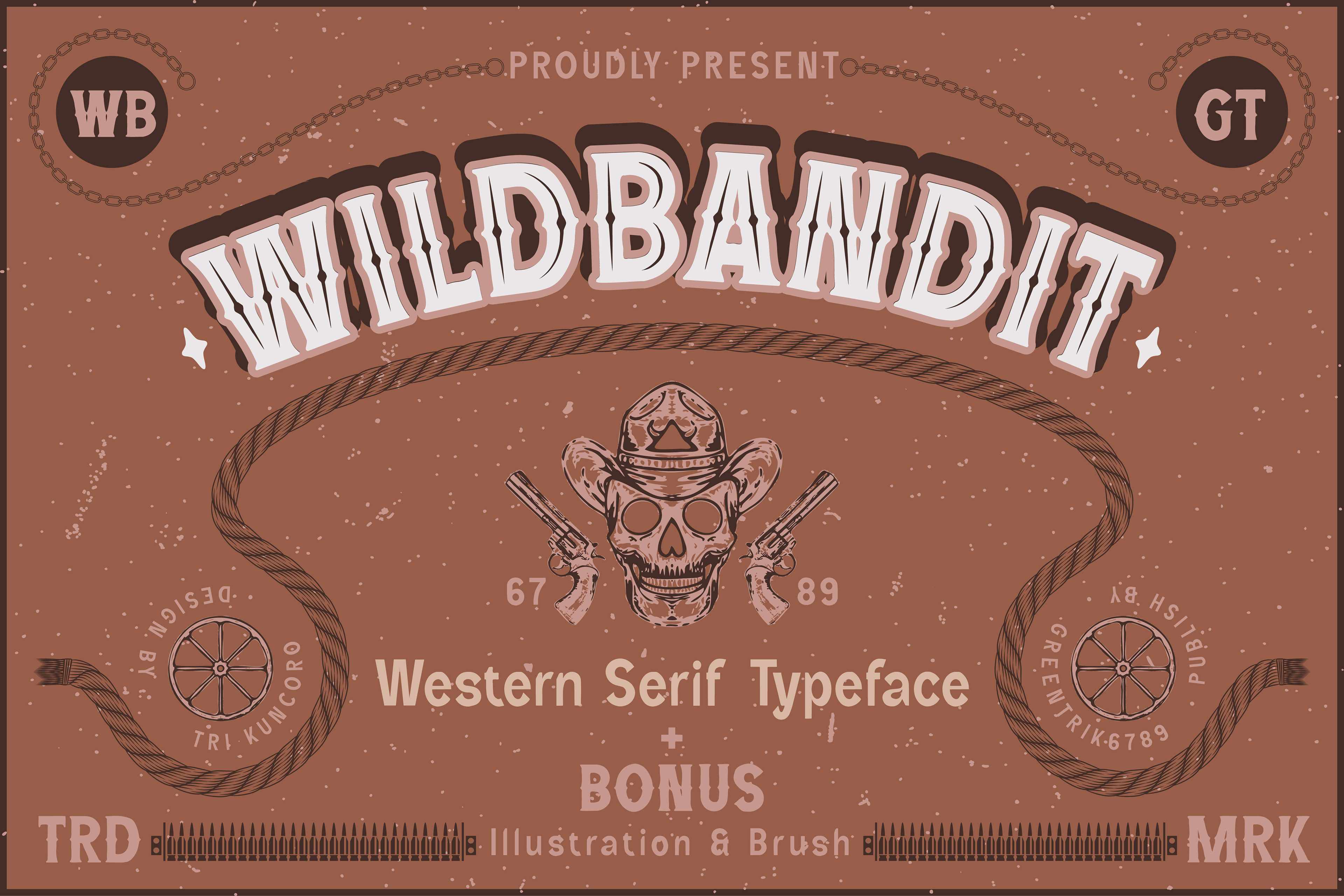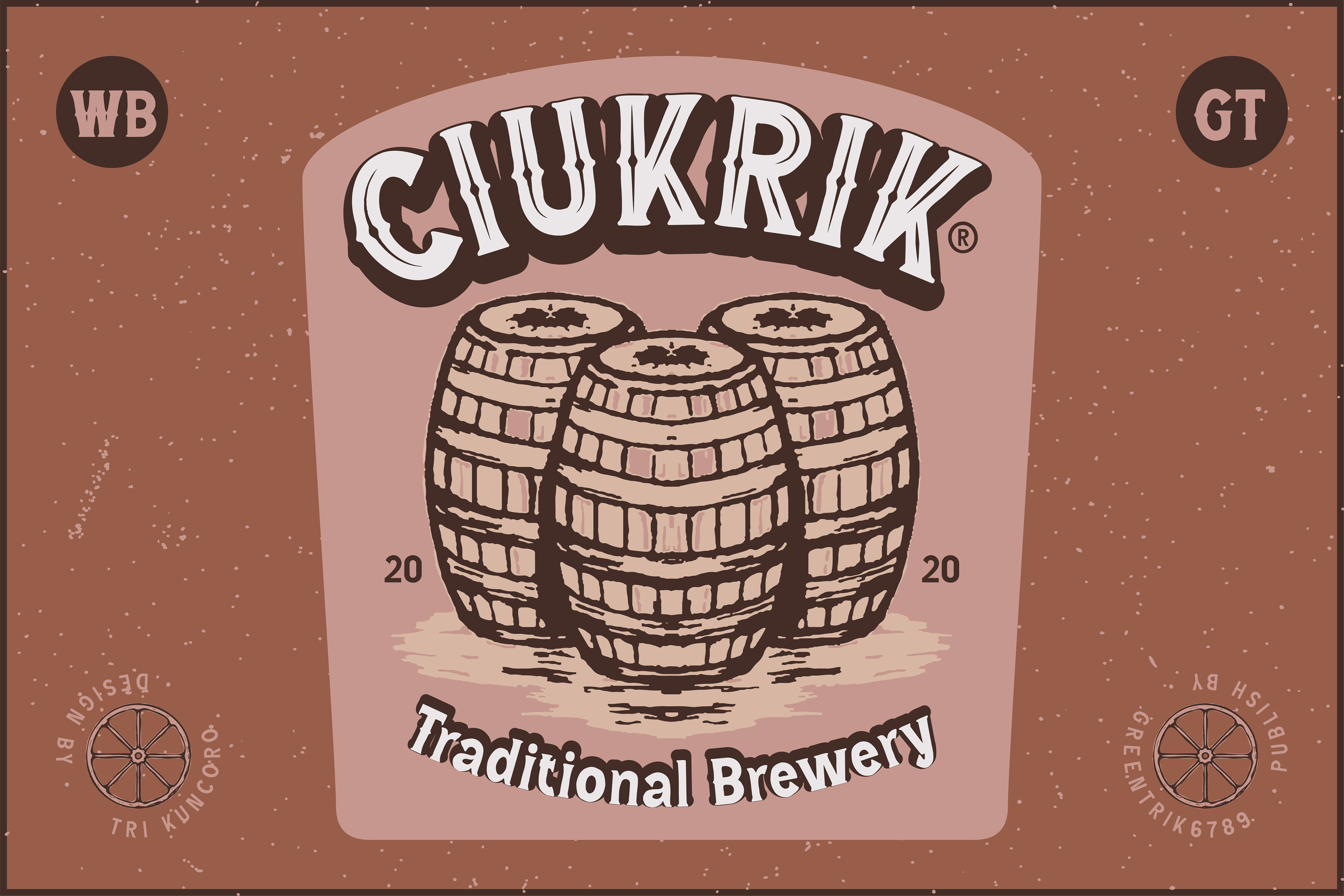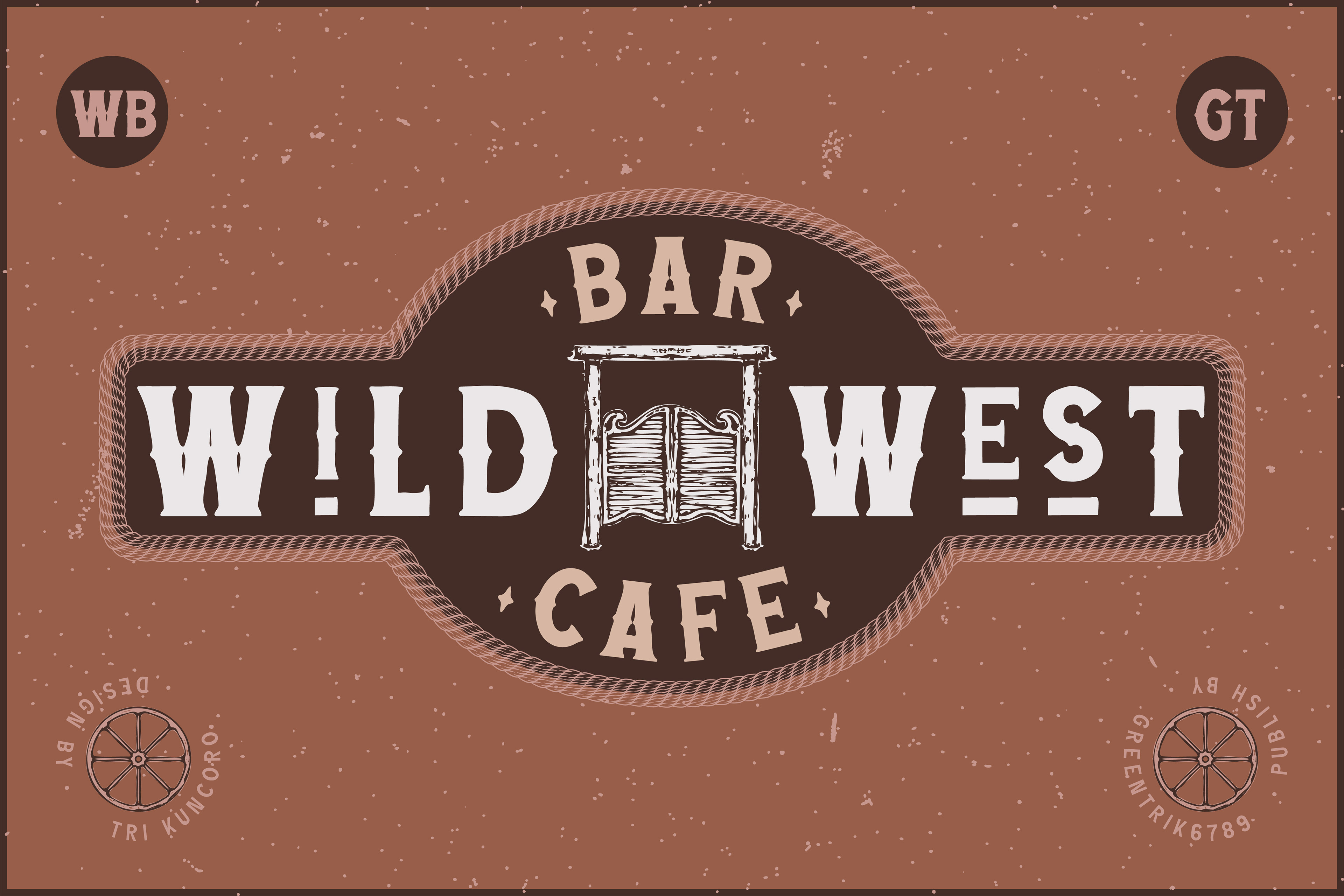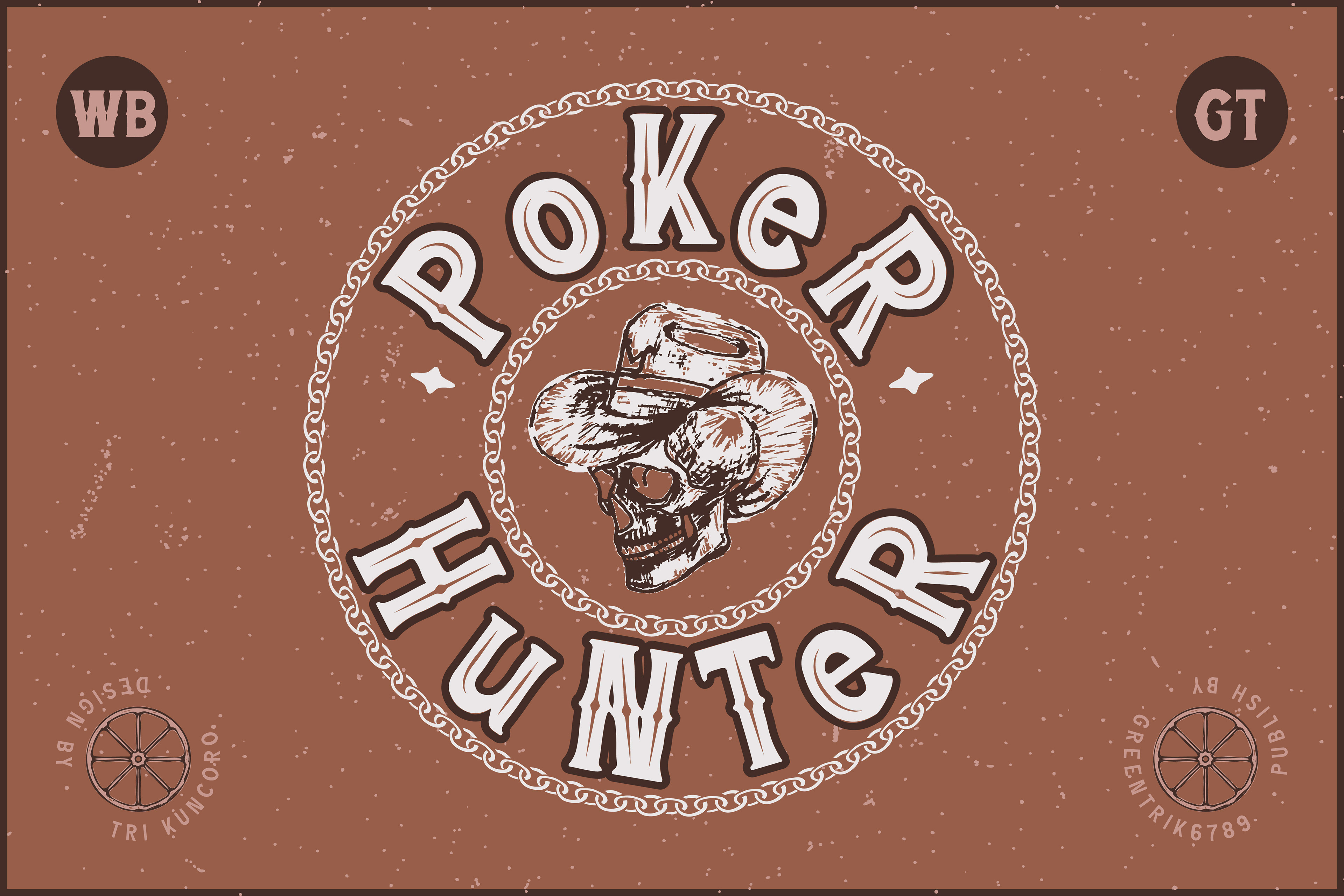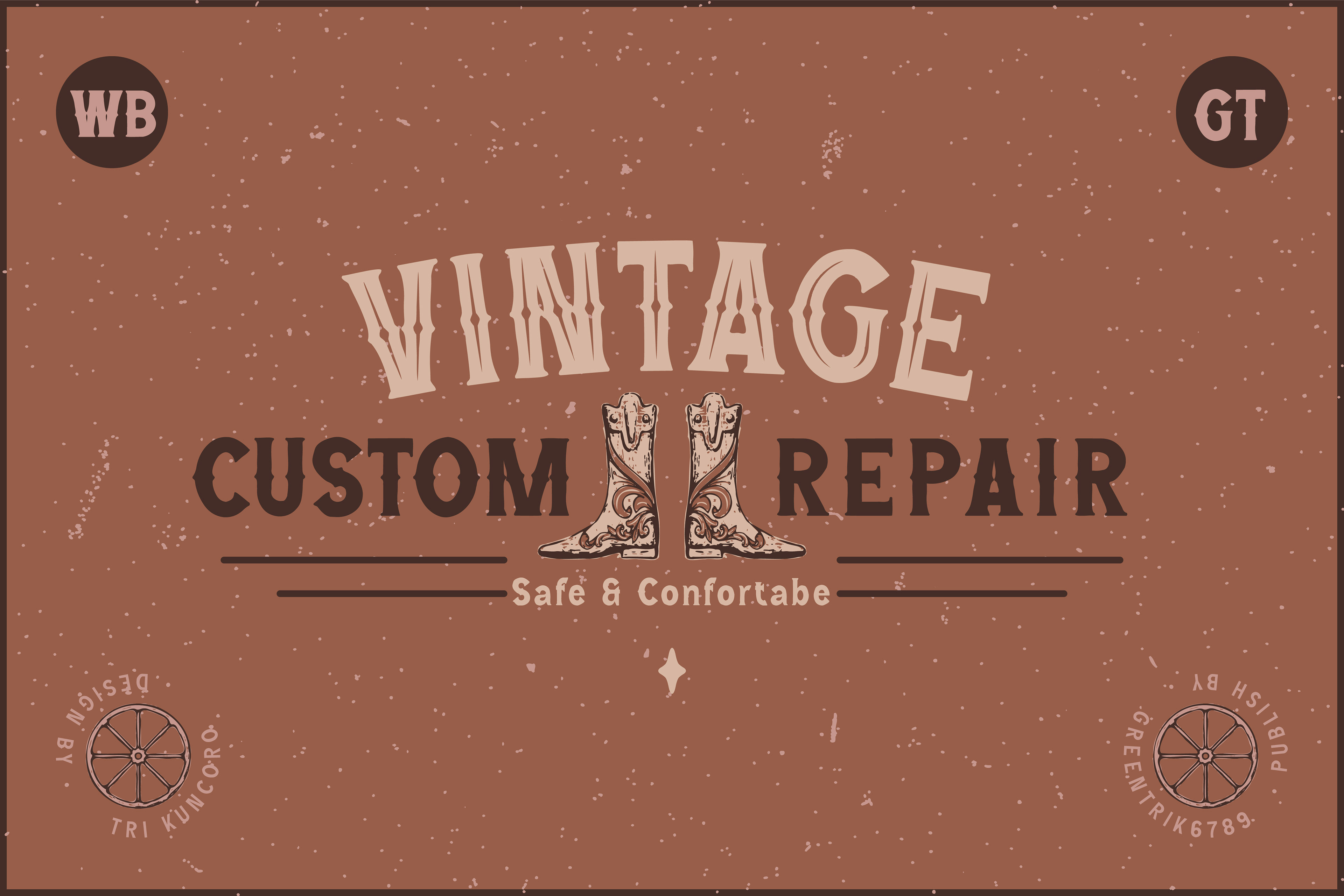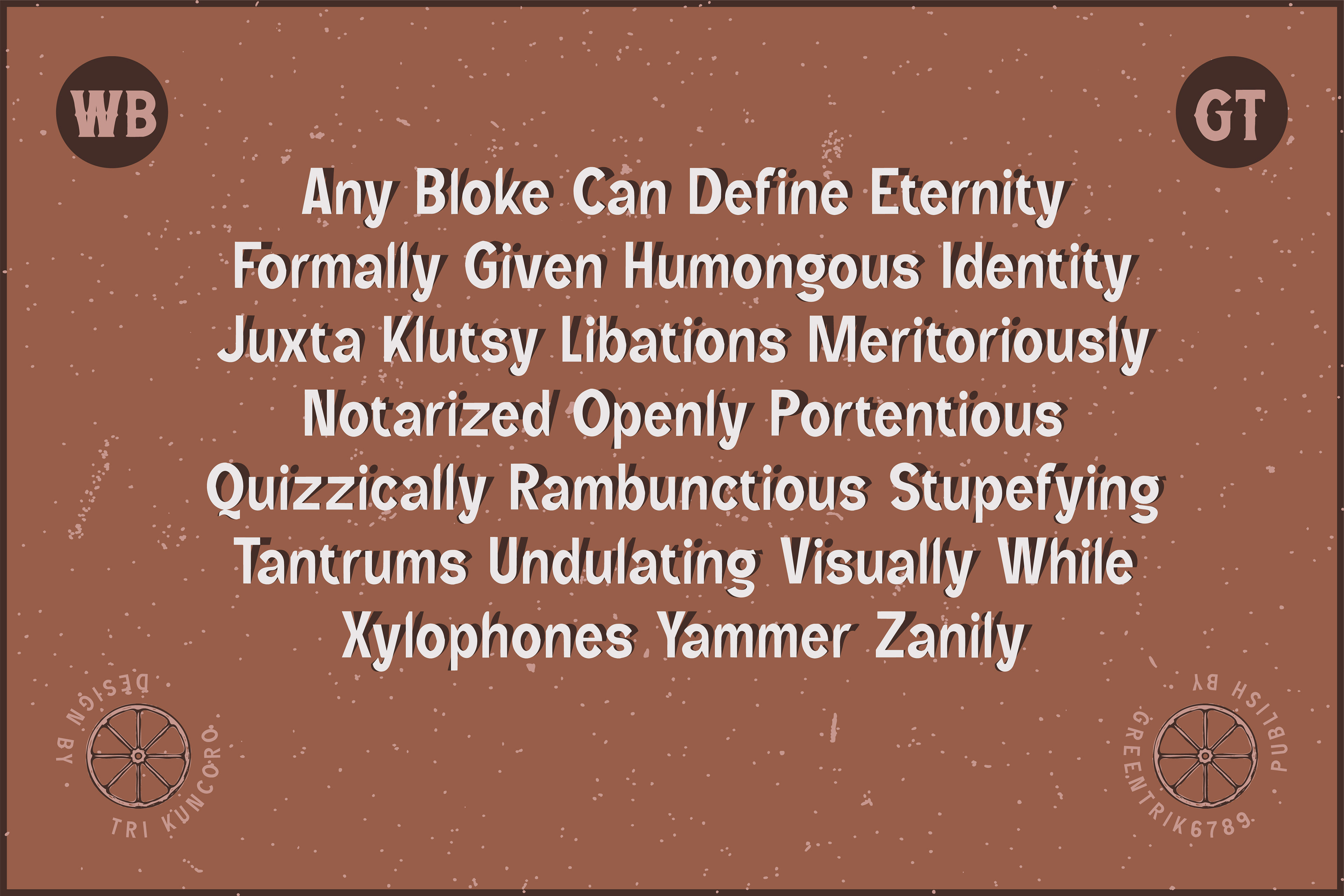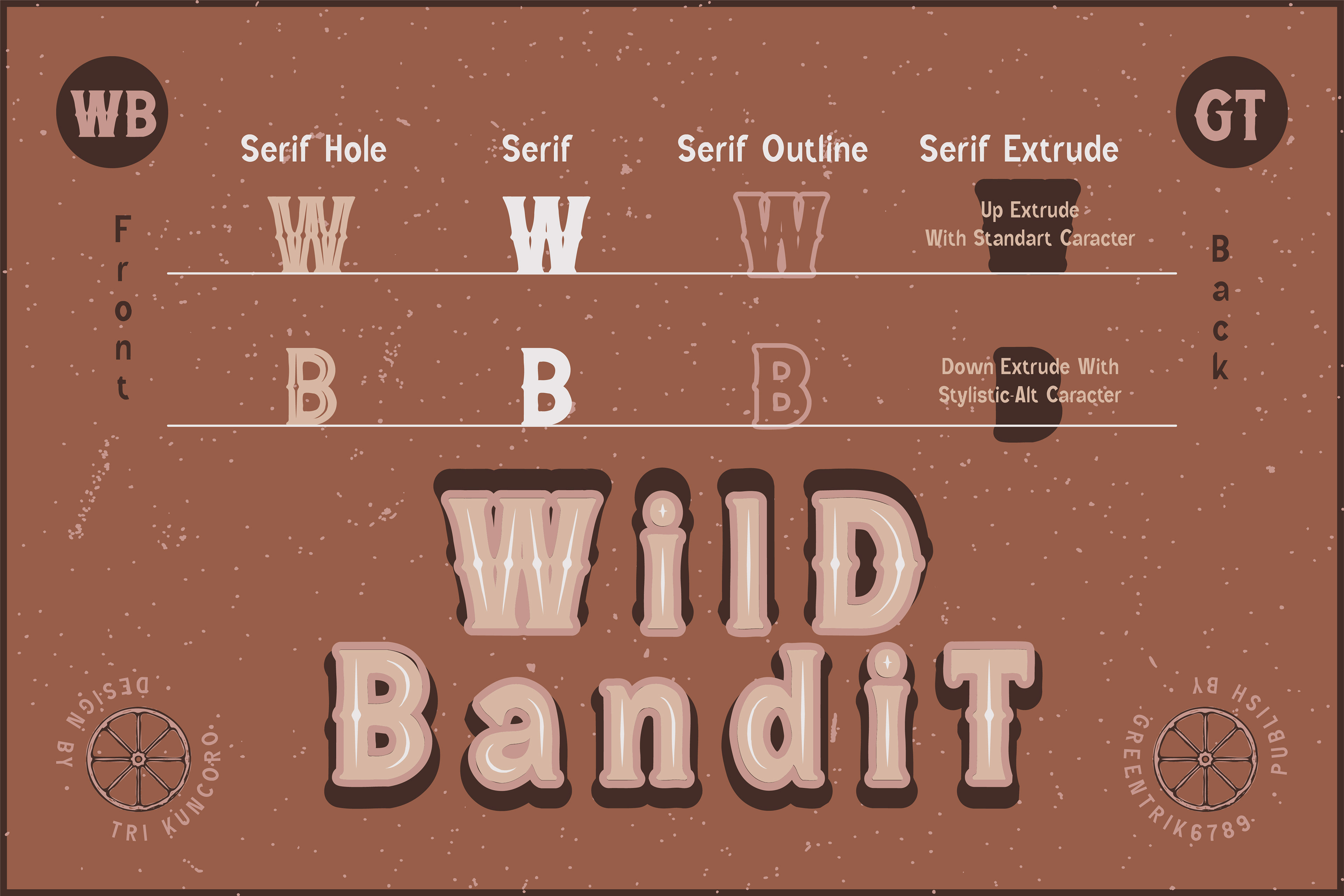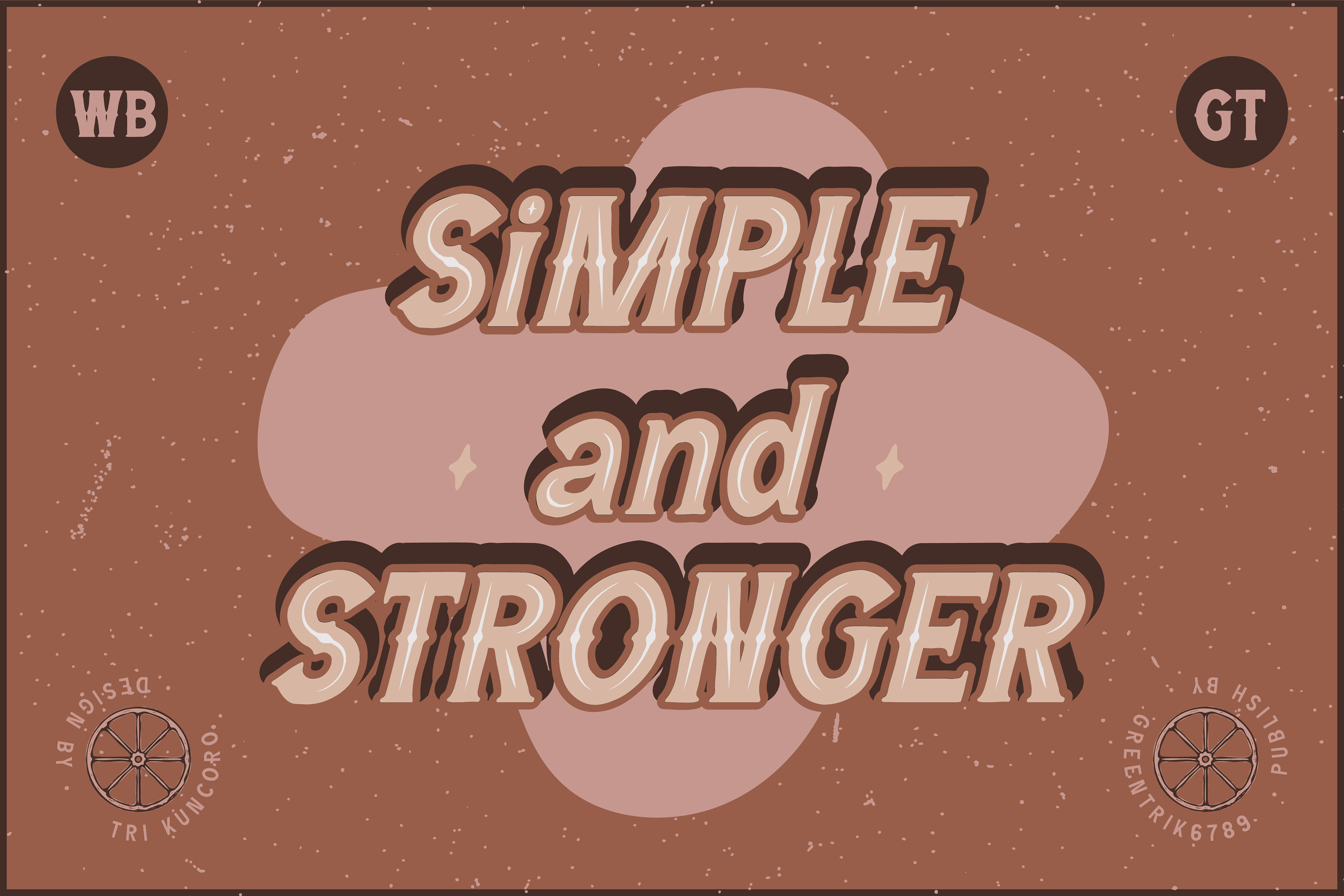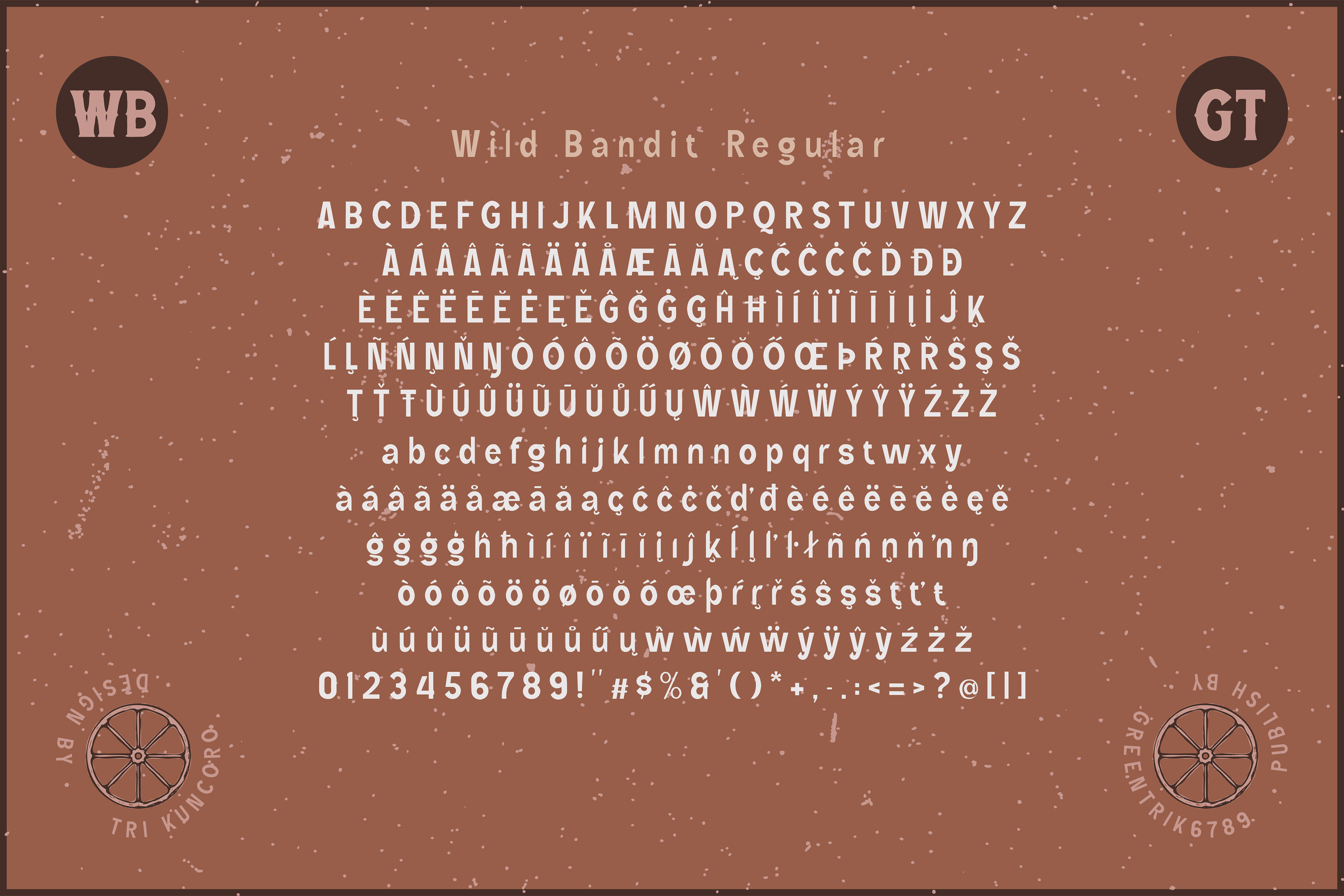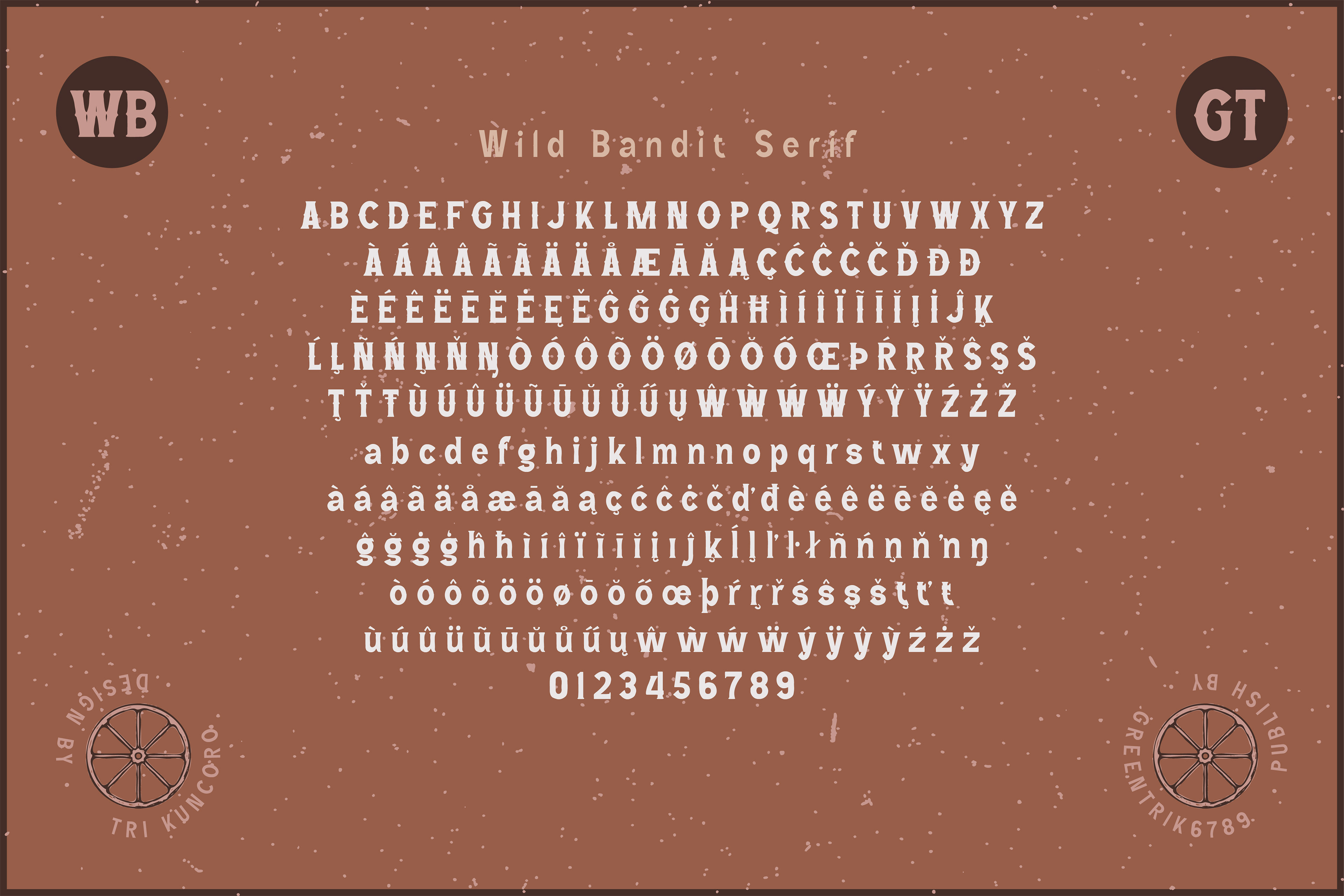
Wild Bandit is a cool, bold and vintage styled display font. It works incredibly well on posters, labels, branding and pretty much anything that requires a trendy, assertive touch.
Wild Bandit comes with 10 styles namely regular sans, serif, serif hole, serif outline, serif extrude and italic style.